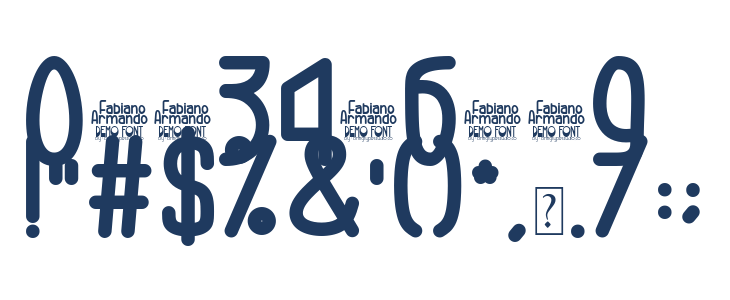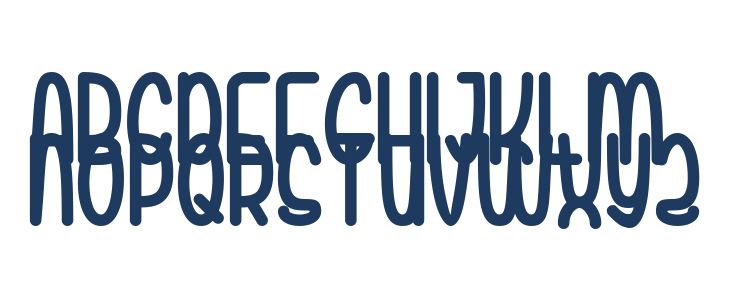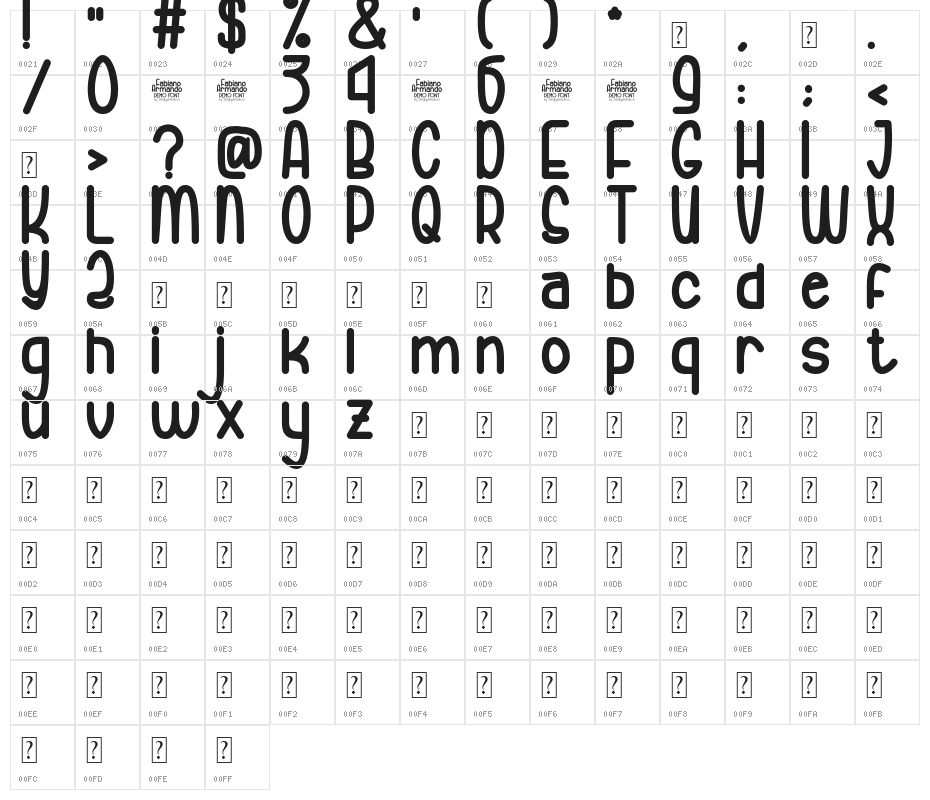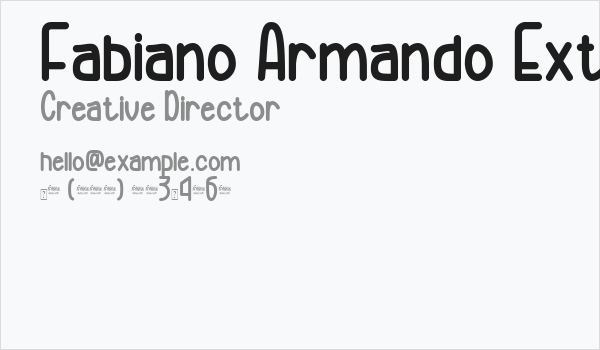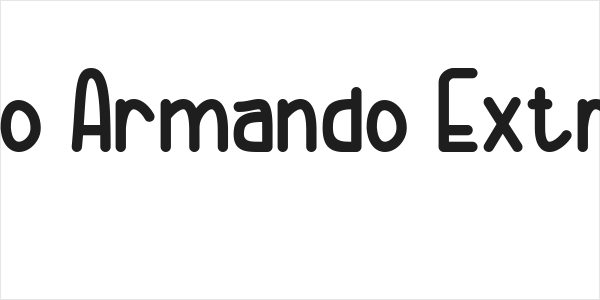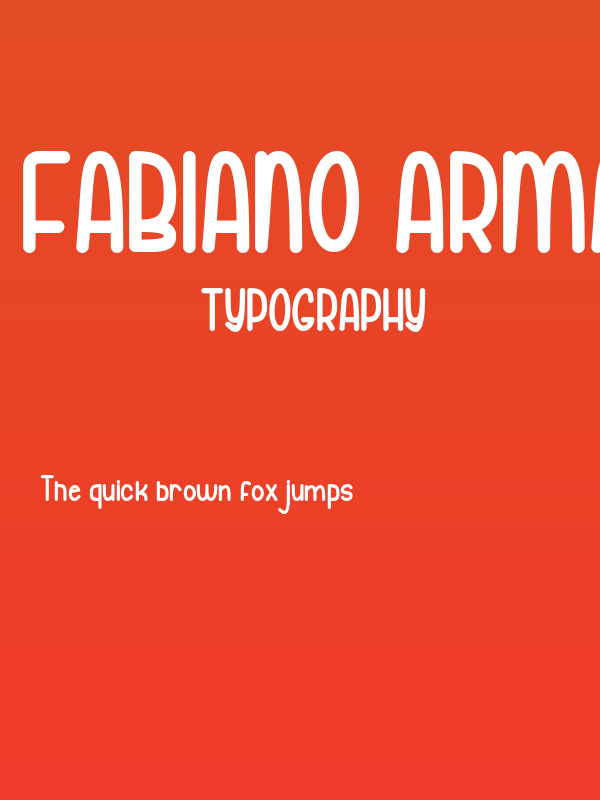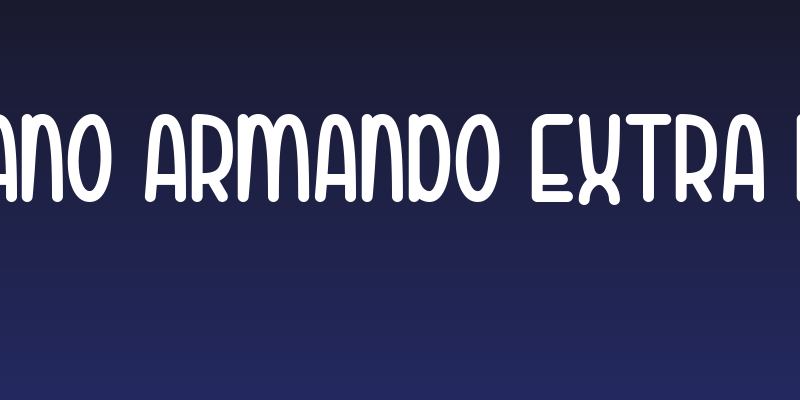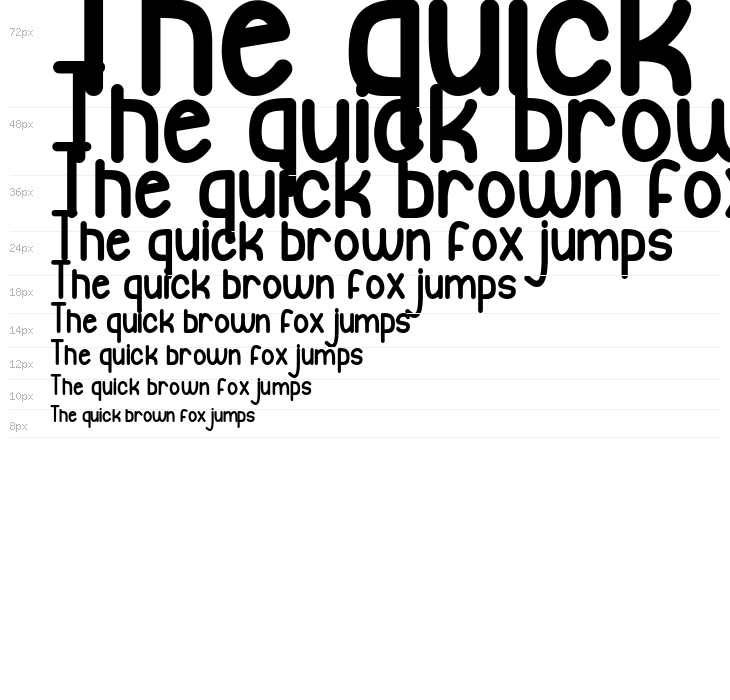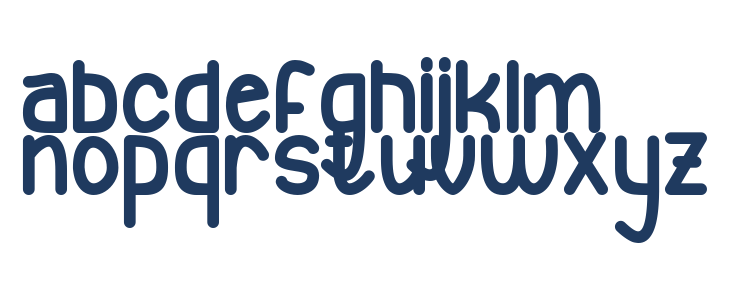
Fabiano Armando Extra Bold Font
Fabiano Armando Extra Bold Description
A playful, rounded sans-serif font with extra bold strokes and uniform thickness, featuring tall uppercase letters and generous curves. The characters have a friendly, informal appearance with consistent width and minimal contrast.
| Overall Style | Playful, Modern, Informal |
| Use Case | Headlines, Logos, Posters, Packaging |
| Proposed Projects | Children's books, posters, branding for playful products, packaging, social media graphics. |